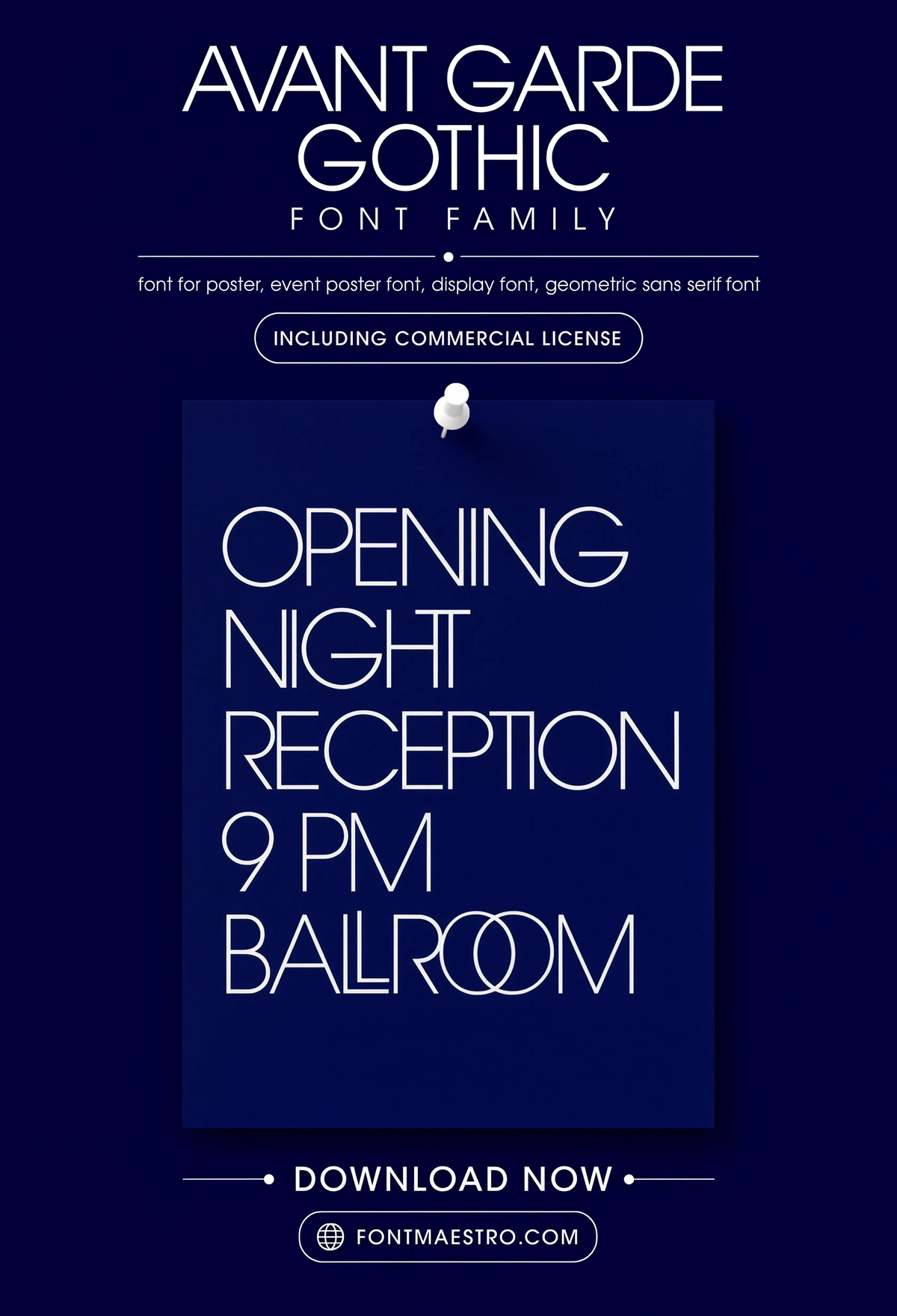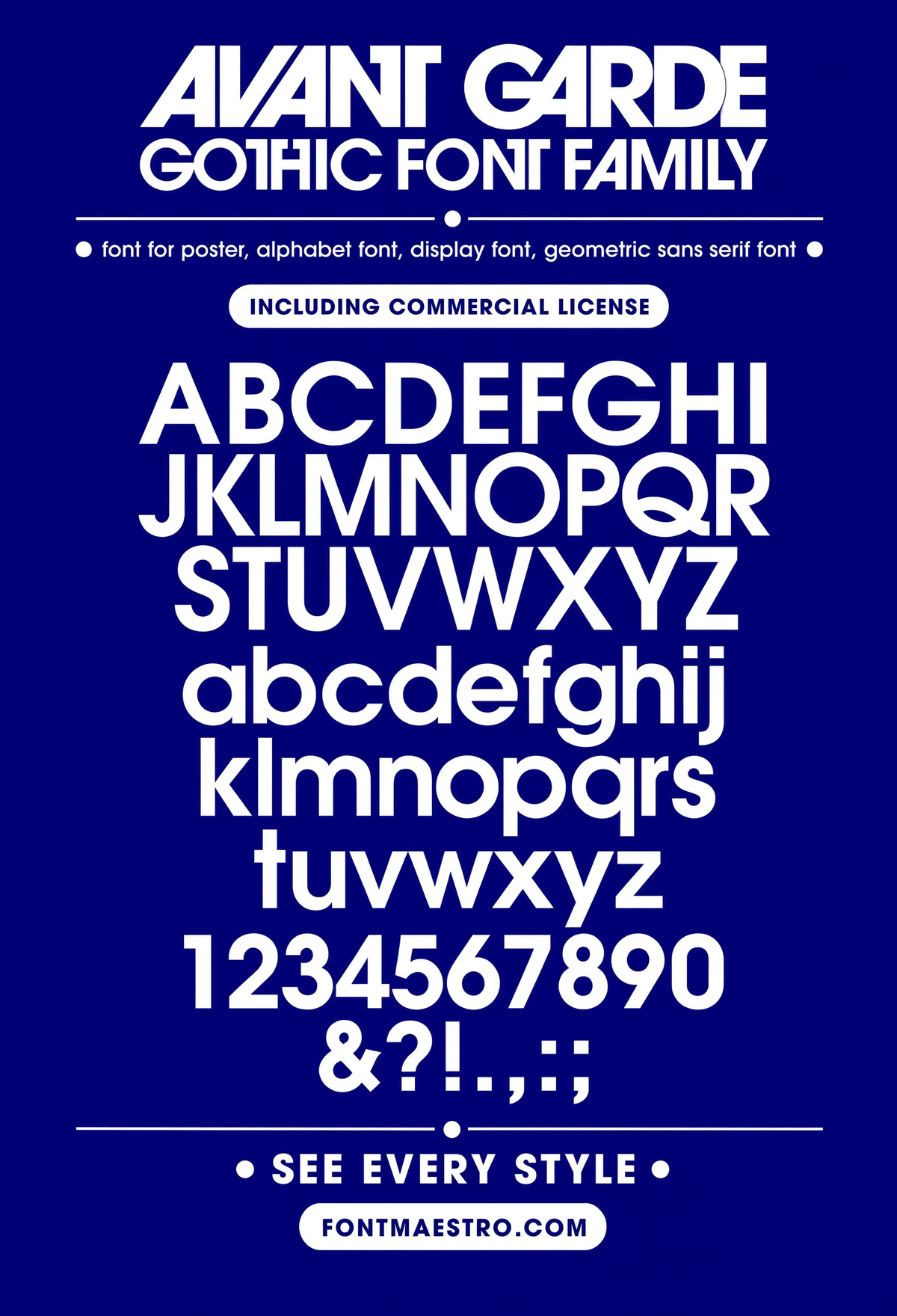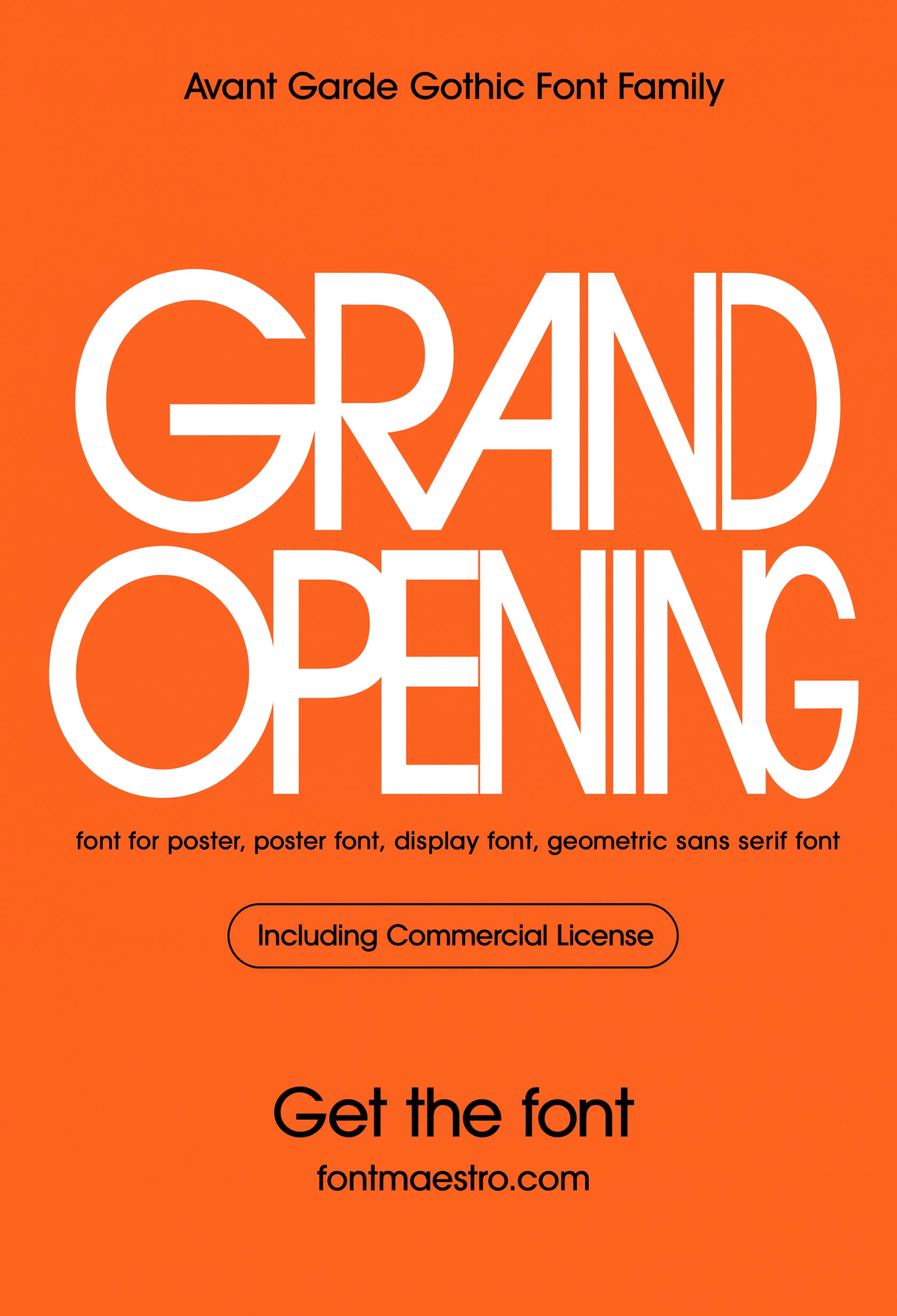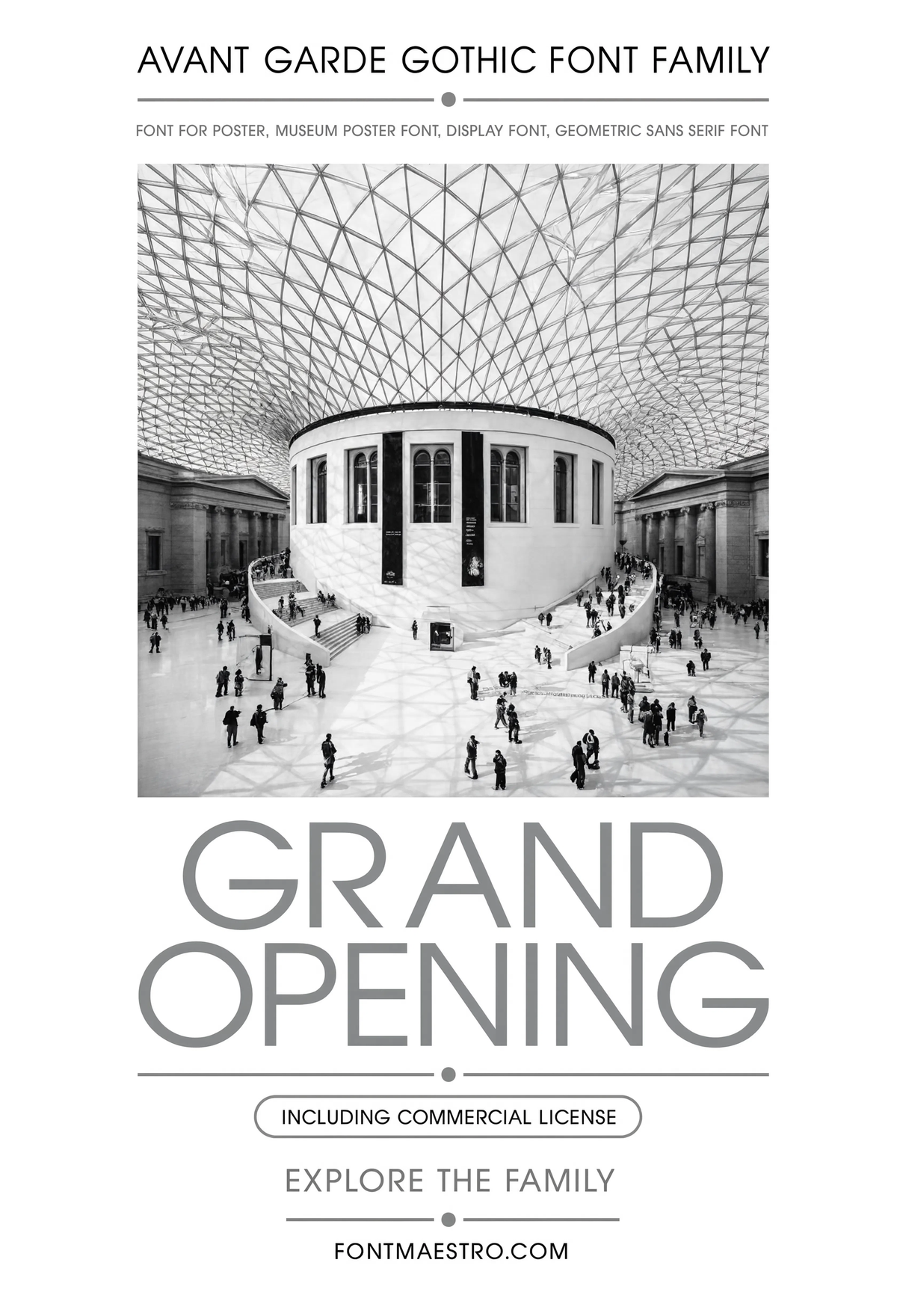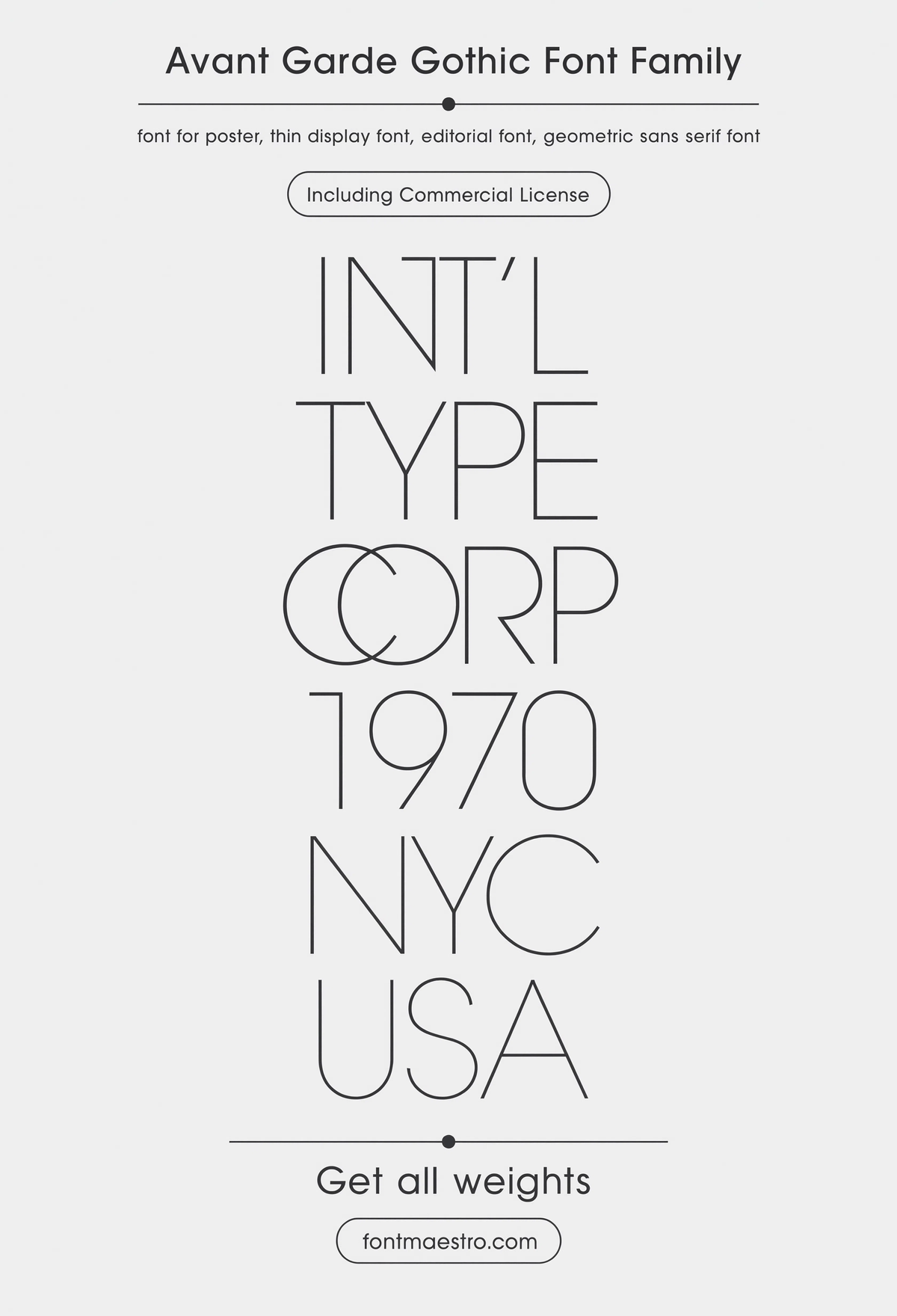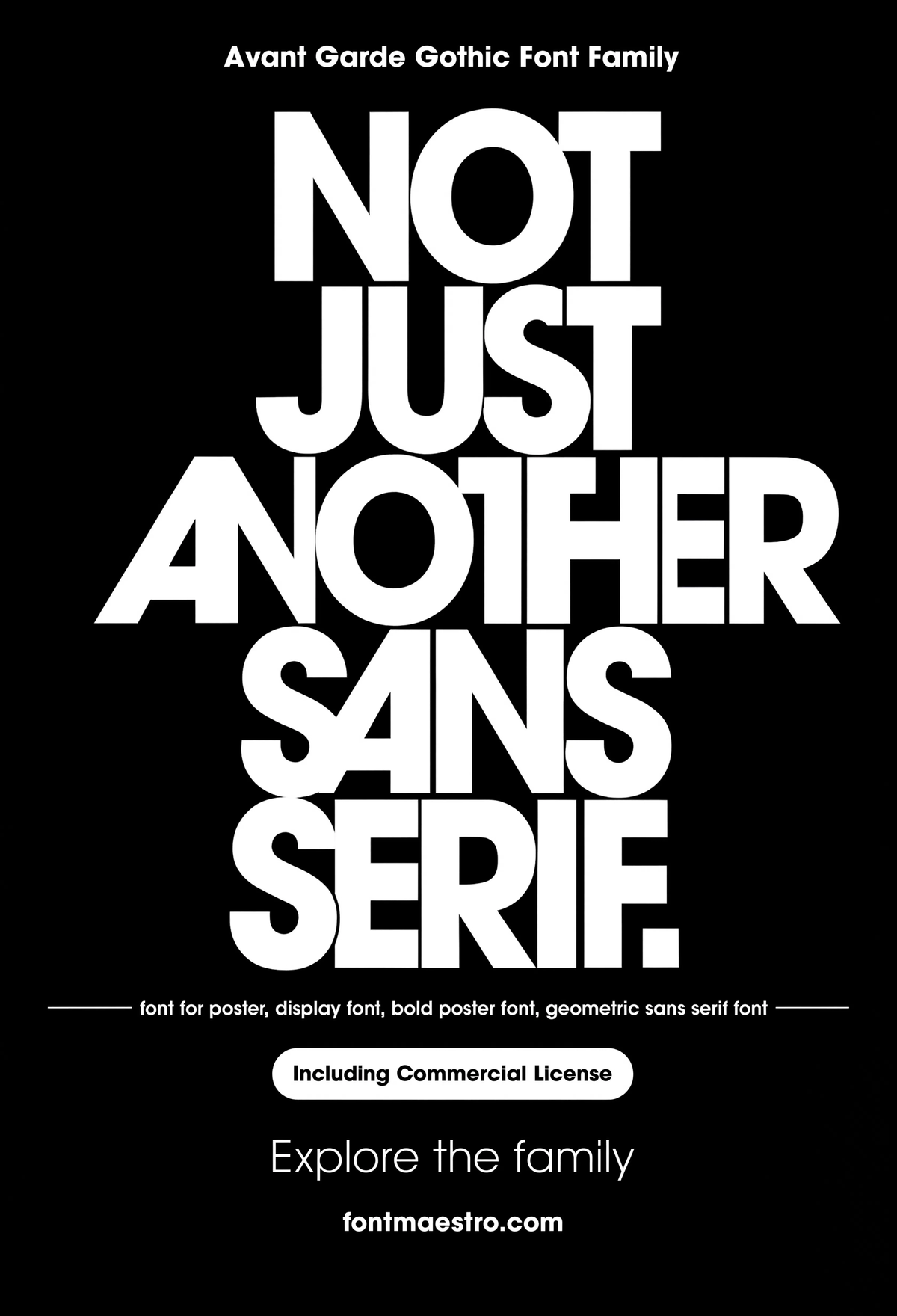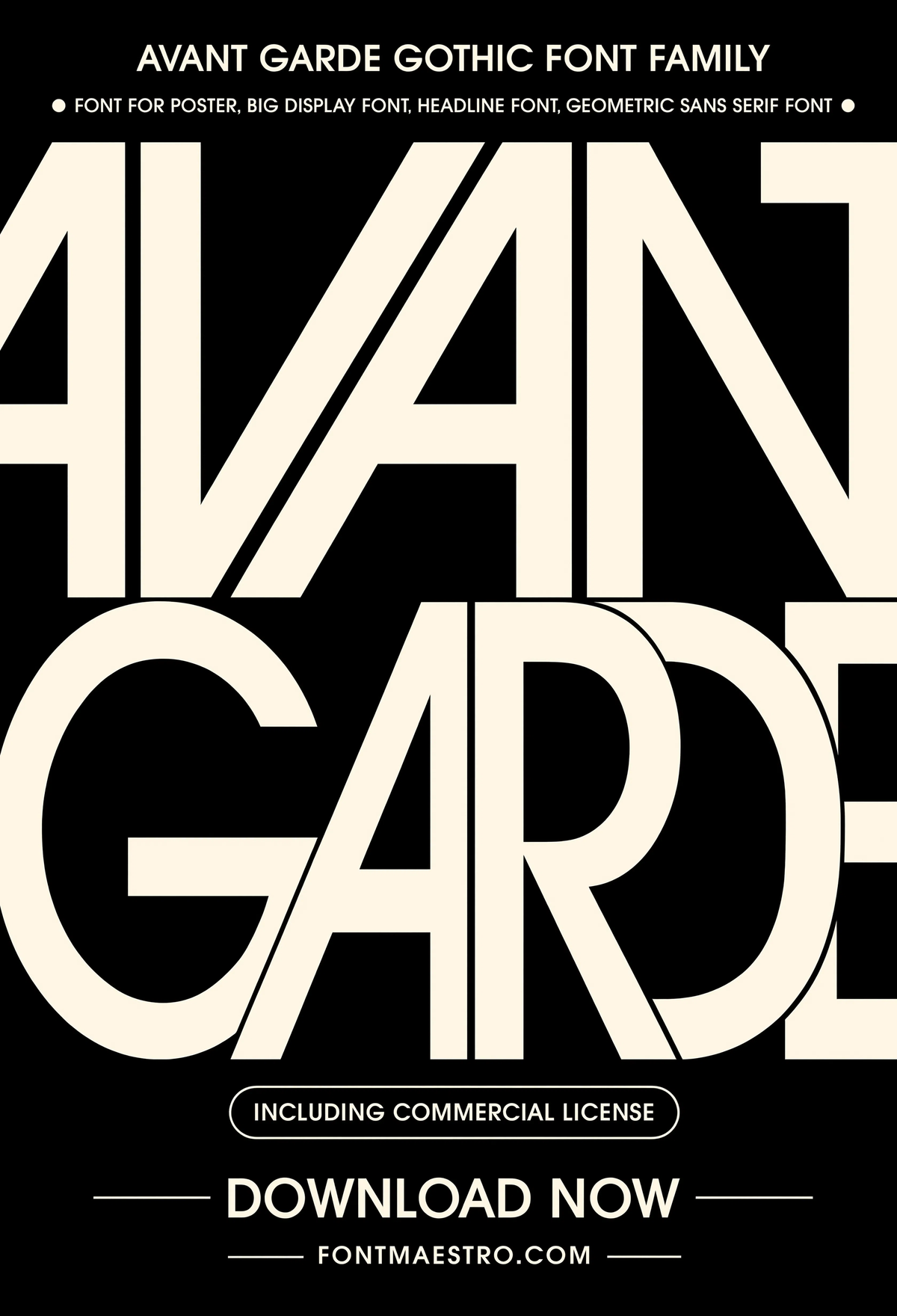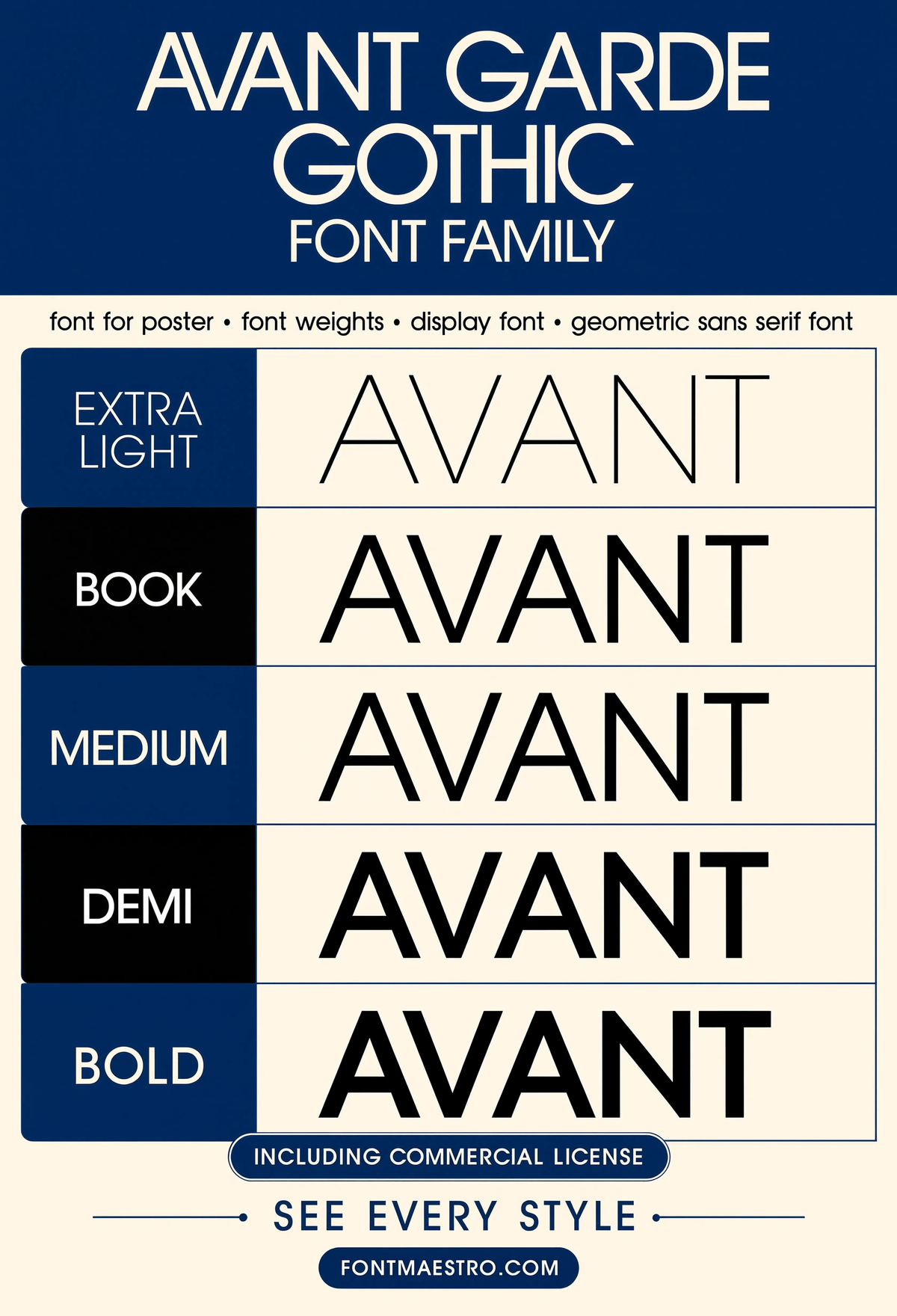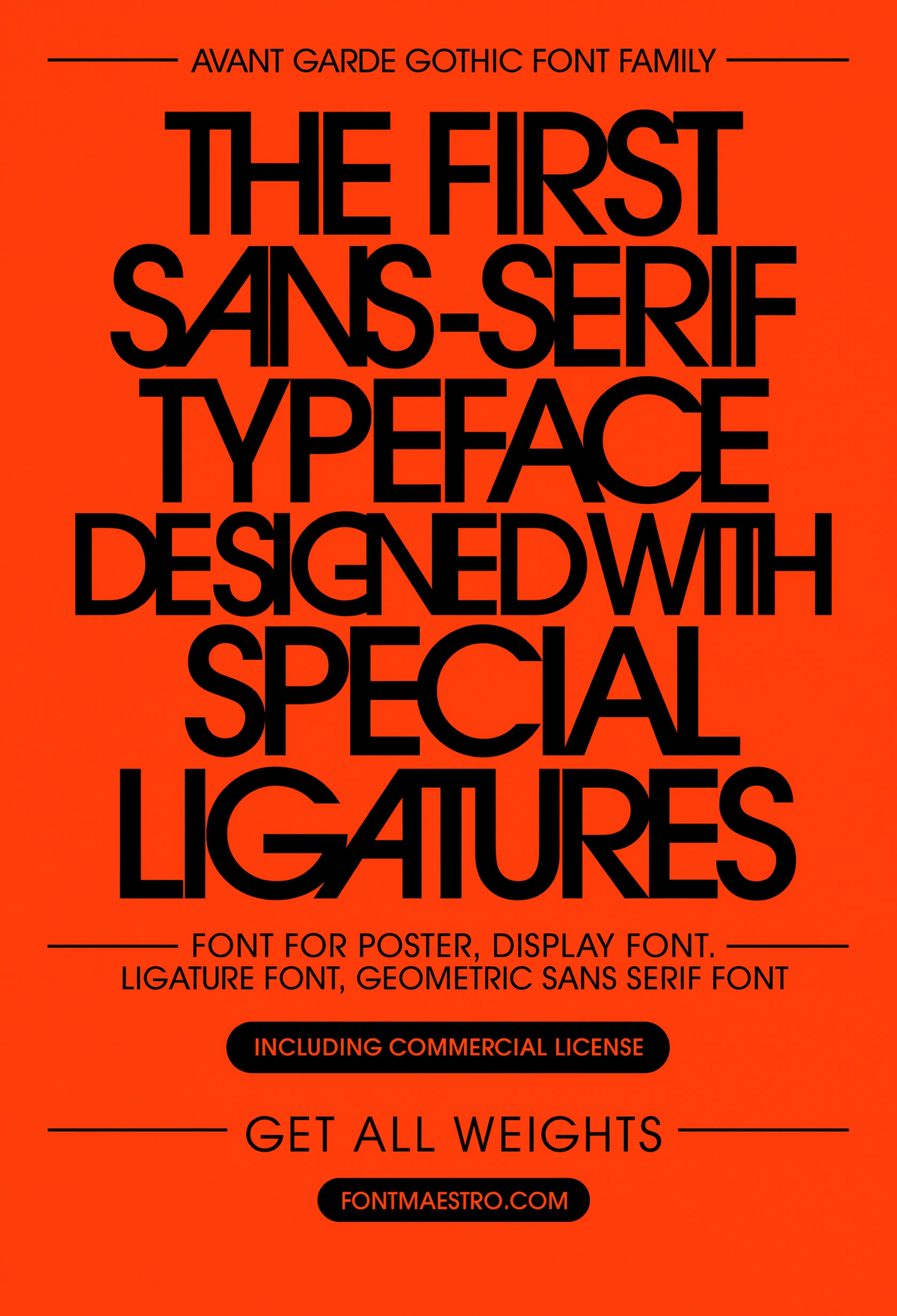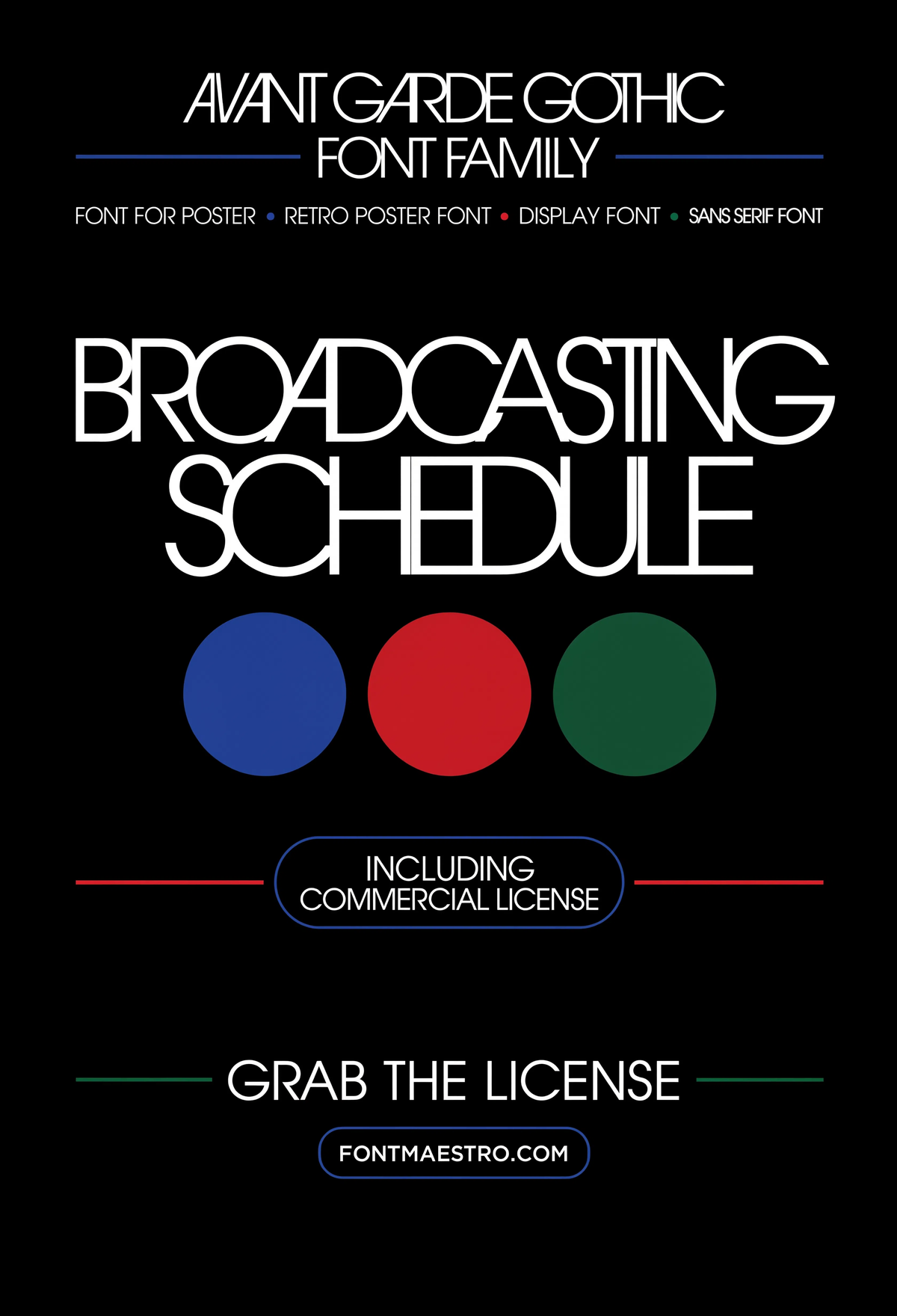
A font for poster work has to survive a completely different set of conditions than body copy, read at a glance, hold up printed three feet wide, and still look intentional shrunk down to a social share image. Most “font poster design” searches start after a first attempt already fell apart at one of those sizes.
The keyword splits into a few real needs: “font poster” and “fonts poster” people usually want a display face they can drop straight into a layout, while “font style for poster” and “font untuk poster” searchers are further back, still deciding what category of typeface fits the poster’s mood before picking a specific file.
Quick answer: Avant Garde Gothic is built specifically for poster-scale work, a geometric sans family with enough weight range to run a headline in Bold and supporting text in a lighter cut from the same family, plus a distinct ligature set for retro broadcast and event-poster layouts. Check weight contrast and letter width before picking any font for poster use; a single-weight download rarely gives you a working hierarchy.
Why does a font for poster use need more than a bold headline weight?
A poster isn’t one line of type. It’s a headline, a date, a venue, fine print, usually four or five size jumps on the same sheet. A font family with only one usable display weight forces the designer to fake the rest with size and spacing tricks alone, and that’s exactly where posters start to look amateur.
What a working poster typeface actually needs:
- A genuine weight range, Extra Light through Bold, ideally more, so a hierarchy exists without switching typefaces mid-layout.
- Geometric consistency across weights, the O should stay round, the A should keep its apex shape, at every weight. Weights that drift structurally make a poster look like it’s mixing two different fonts.
- Ligatures or stylistic alternates, a poster headline is where a designer wants one distinctive detail. Without alternates, every headline in the family looks interchangeable.
Avant Garde Gothic’s geometric structure holds its circular O and angular A consistently from Extra Light to Bold, which is the detail that separates a real poster typeface from a single-weight display font wearing a poster’s clothes.
What does a font for poster look like across real layouts?
A one-word specimen tells you nothing about how a typeface behaves once it’s carrying an actual event poster, date stacks, venue lines, sponsor logos competing for the same sheet. This is where “font poster design” searches usually run into trouble with generic downloads.
The full geometric sans alphabet laid out together, this is the reference sheet worth checking before anything else, since it shows every weight’s letterforms side by side.
Avant Garde Gothic, Event Poster
A full event poster layout, not a single word, headline, date stack, and venue line all set in the same geometric sans family at different weights, proof the family scales down cleanly.
Avant Garde Gothic, Grand Opening Poster
Bold weight carrying a full retail announcement, this is font poster design under commercial pressure, where the type has to grab attention from across a store window.
How do weight extremes change what a poster font communicates?
Extra Light and Bold from the same geometric family send completely different signals, even with identical letterforms underneath. Extra Light reads editorial and restrained, fashion, museum, gallery work. Bold reads urgent and commercial, sales, events, announcements. Picking the wrong end of that range for the wrong context is a common font for poster mistake.
Get downloadsAvant Garde Gothic, Museum Poster
A quieter application, museum and exhibition poster work, where restraint matters as much as impact. The same geometric structure reads calm here instead of loud.
Avant Garde Gothic, Extra Light Poster
The lightest cut in the family, set large, this is font poster design leaning toward editorial restraint, better suited to fashion or gallery work than a loud announcement.
Avant Garde Gothic, Bold Statement
Full weight, minimal supporting copy, a single bold statement filling the sheet. This is where the geometric consistency across weights actually pays off; the Bold cut doesn’t feel like a different typeface than the Light.
What ligature and alternate details set a poster typeface apart?
Stylistic alternates are the detail most generic display fonts skip entirely, and it’s exactly the detail a designer needs when a headline word needs one distinctive treatment without switching to a whole second typeface.
- A working poster typeface needs multiple weights, not just one bold display cut.
- Ligatures and stylistic alternates are the detail that separates a memorable headline from a generic one.
- Test any font for poster use at both full scale and shrunk-down social size before finalizing the layout.